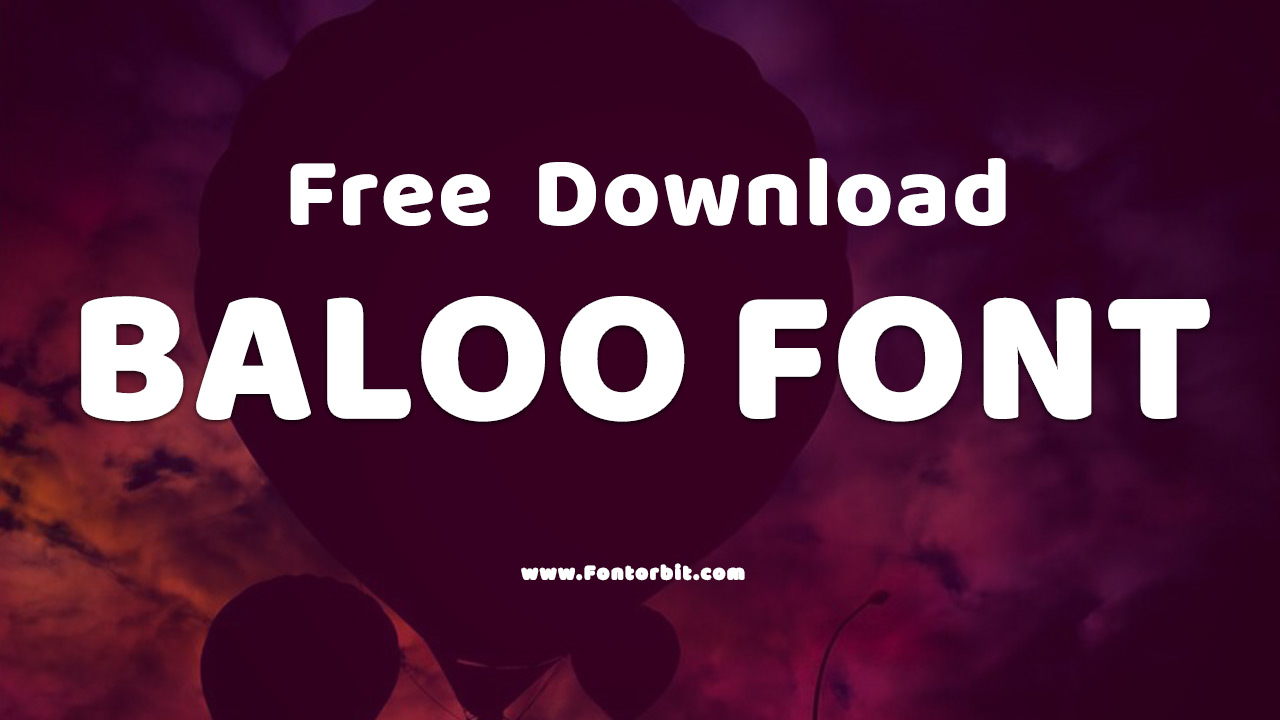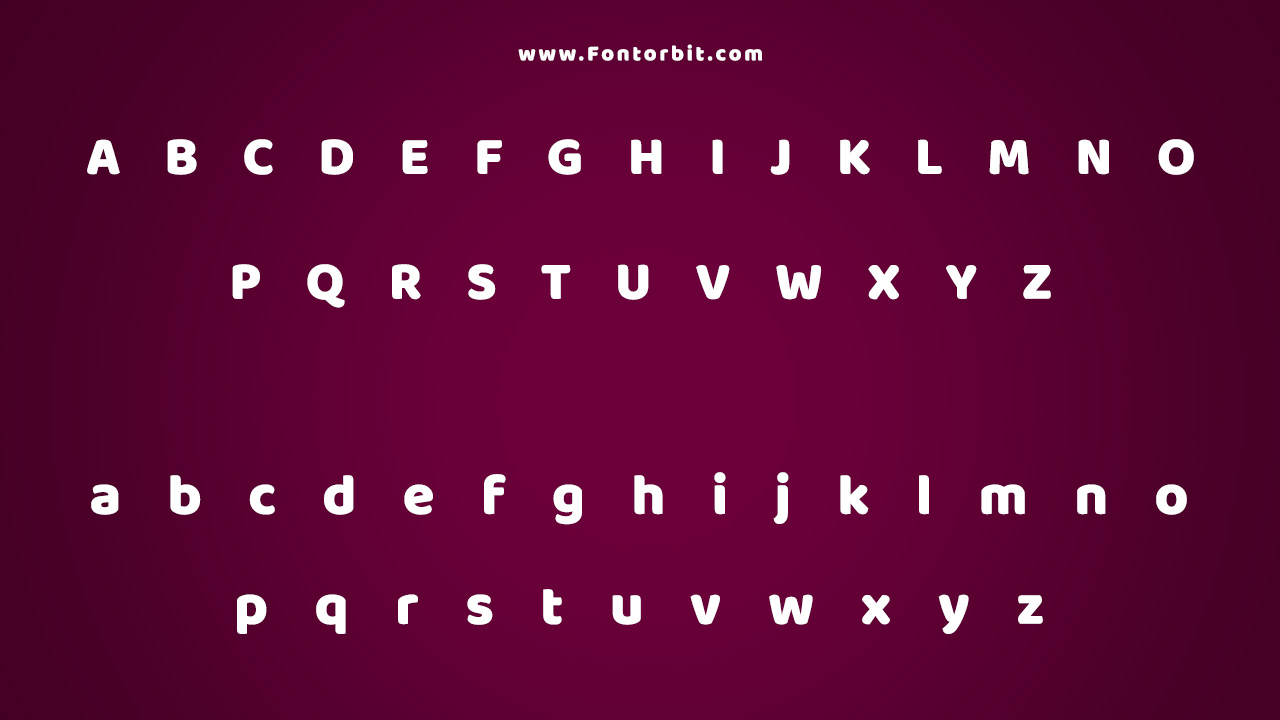
Baloo Font, created by Ek Type and designed by a team including Sarang Kulkarni and others, is a versatile display typeface that combines a playful design with multilingual support.
The Baloo Font Family Includes
- Baloo Regular
- Baloo Bhai (Gujarati)
- Baloo Bhaijaan (Urdu)
- Baloo Bhaina (Odia)
- Baloo Chettan (Malayalam)
- Baloo Da (Bengali)
- Baloo Paaji (Gurumukhi)
- Baloo Tamma (Kannada)
- Baloo Tammudu (Telugu)
- Baloo Thambi (Tamil)
Its character map includes various glyphs and diacritics, making it suitable for both single and multi-script applications. The font’s friendly and rounded design adds a warm and playful element to your projects.
Baloo Font is widely used for its approachable and versatile design. Its playful appearance enhances web design, makes educational materials more engaging, and adds a friendly touch to branding and advertising. It is also popular in packaging and print media for its clear and inviting style.
- Advertising
- Educational Materials
- Packaging
- Print Media
3.What Is The Font Spacing And Kerning Of Baloo Font?
Font Spacing and Kerning:
- Spacing: Balanced letter spacing for readability.
- Kerning: Well-adjusted for clear character alignment.
4.Which Font Goes Best With The Baloo Font?
It pairs well with clean, sans-serif fonts like Lato or Open Sans for a balanced contrast.
5.Does Baloo Font Have Ligatures And Special Characters?
No, Baloo Font does not feature ligatures. but it includes special characters and glyphs for multiple Indian scripts and Latin.